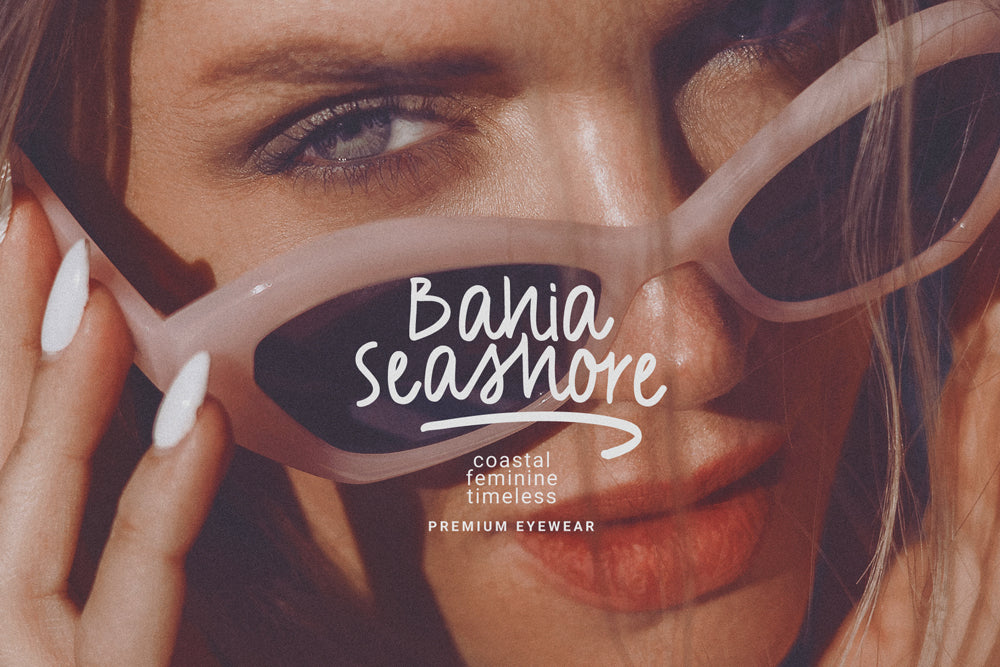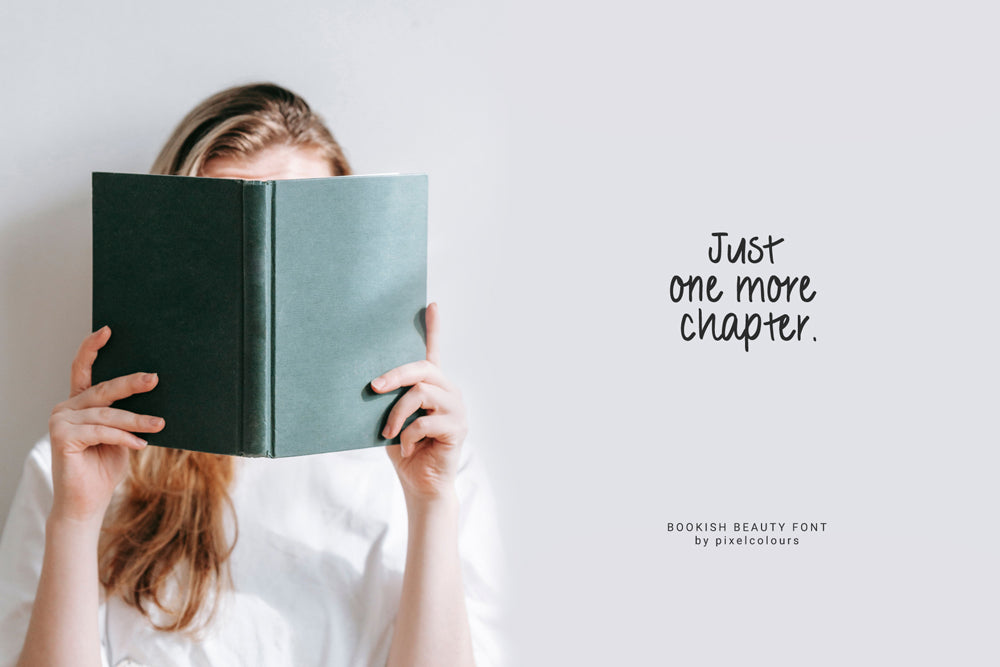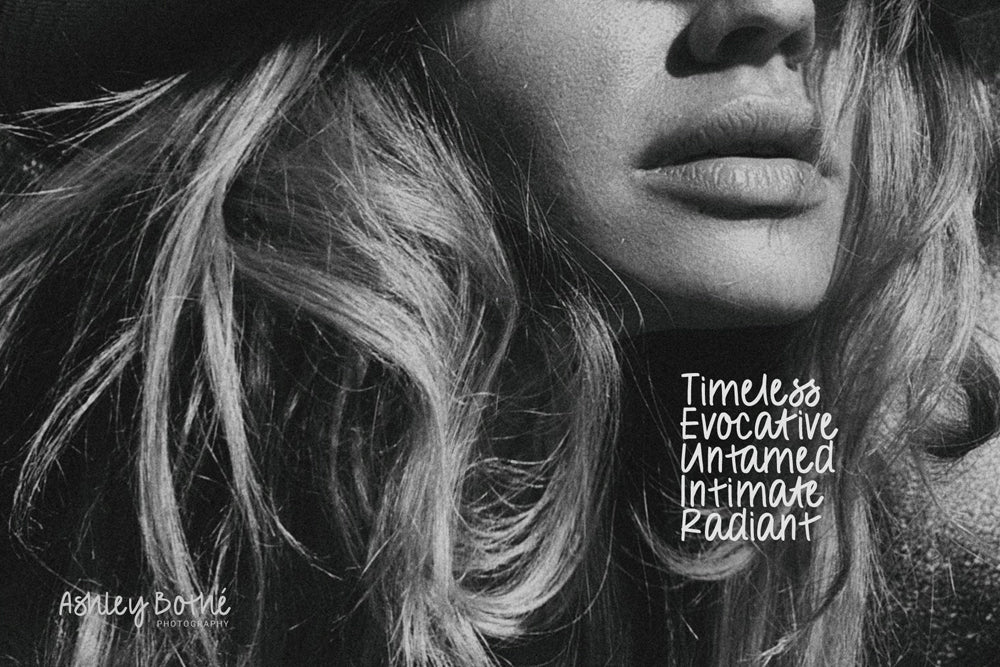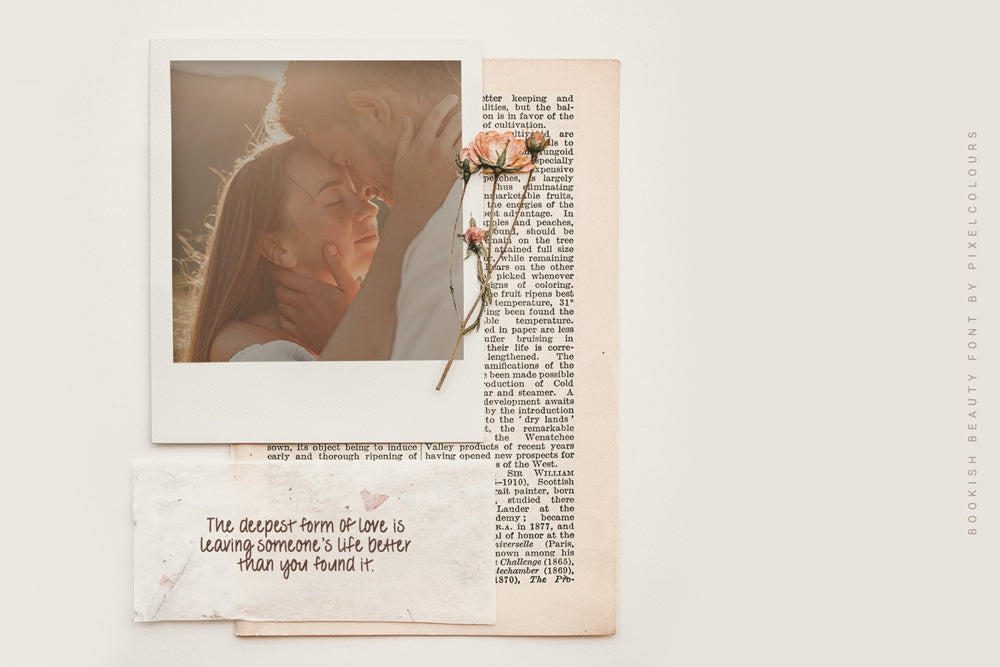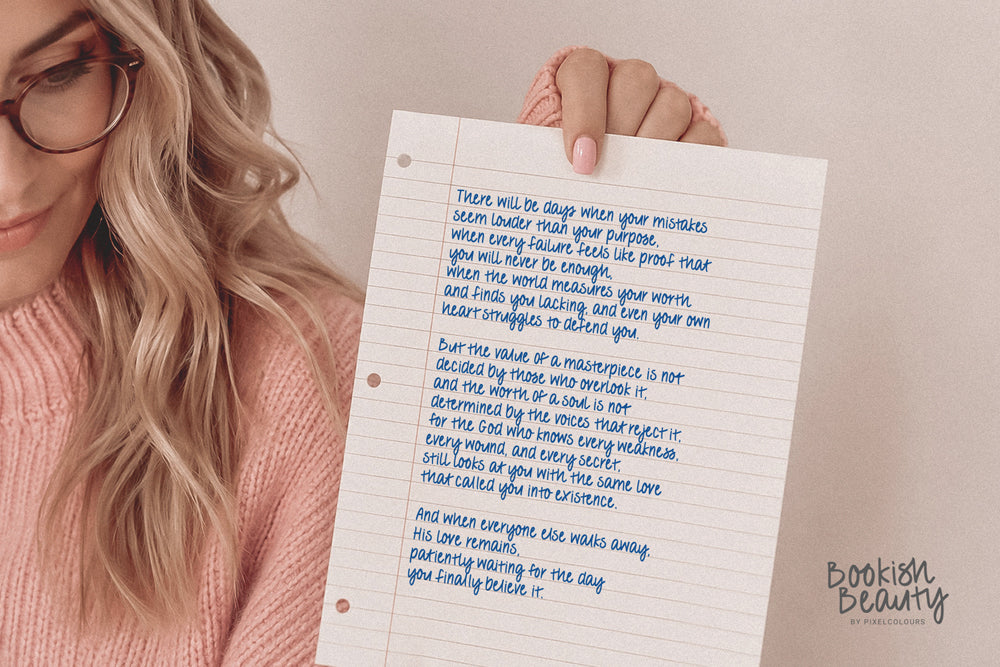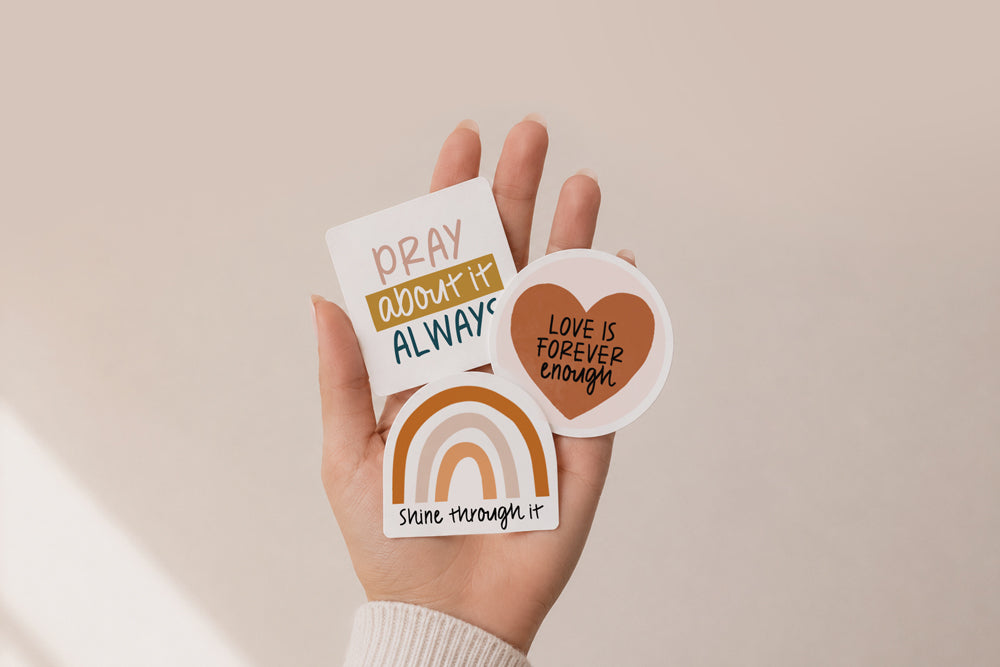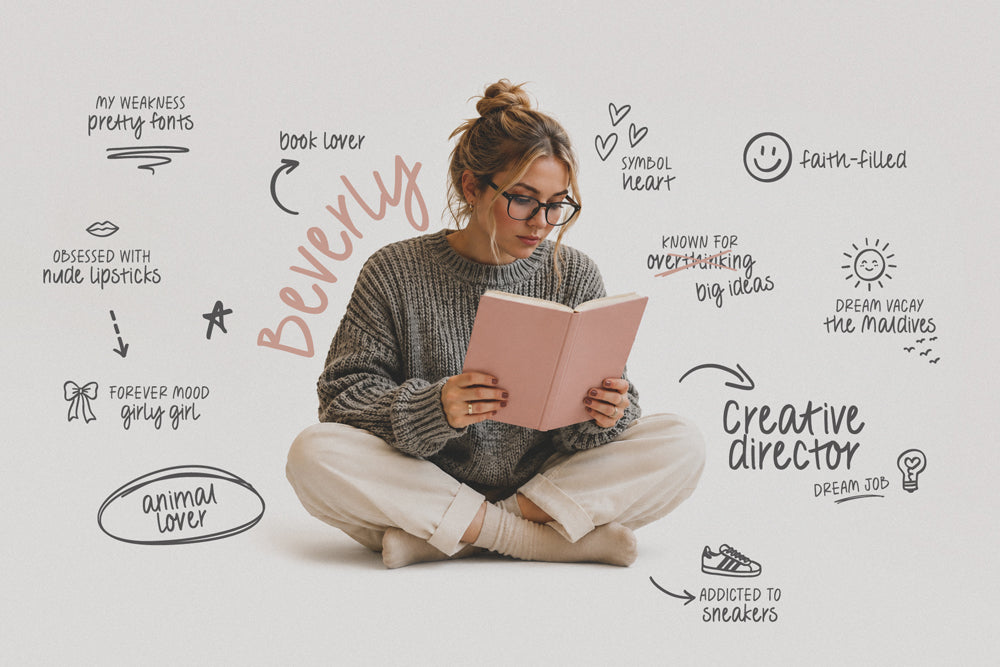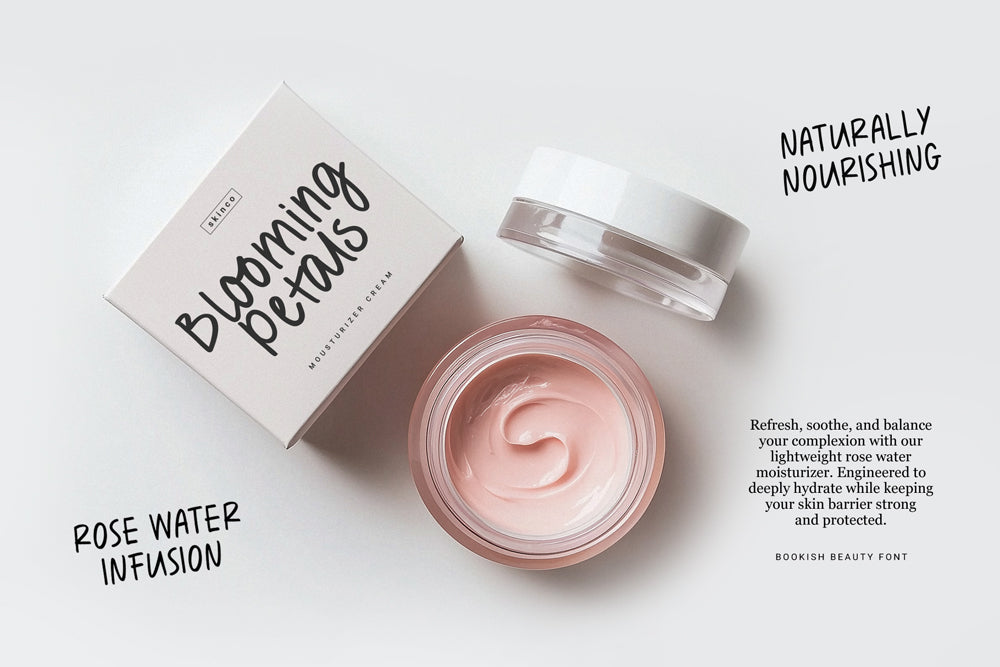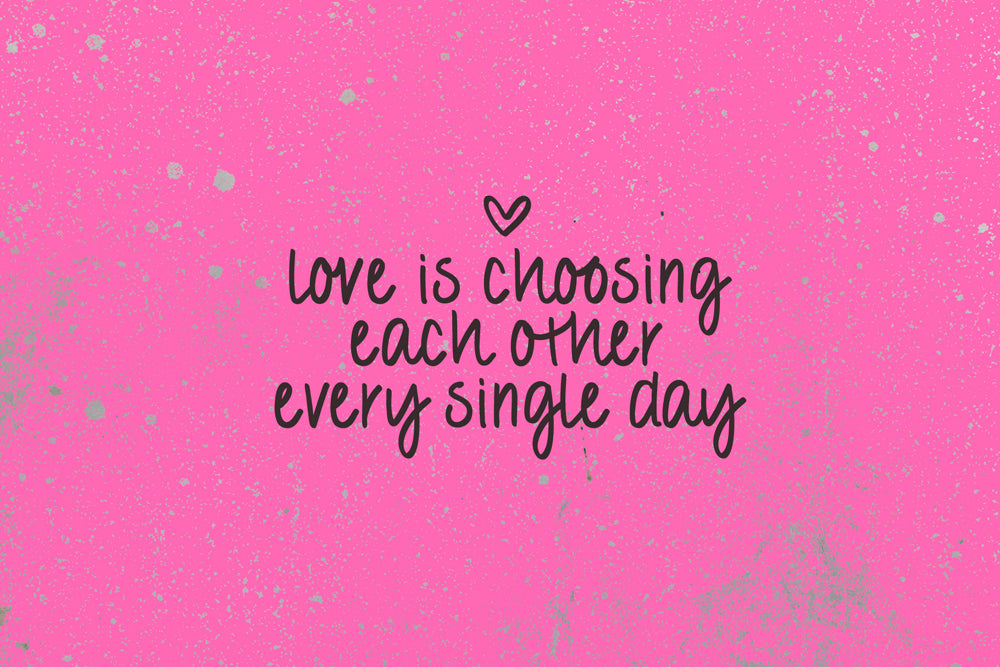
Bookish Beauty Handwritten Font and Doodles
Bookish Beauty is a quirky handwritten font inspired by journaling, stationery, books, stickers and all things cute. Designed to bring warmth, personality, and a human touch to your work, Bookish Beauty celebrates the beauty of things made by hand. This collection includes a natural handwritten script font along with 3 bonus hand-drawn fonts packed with over 400 doodles and decorative clip art.
FEATURES
Bookish Beauty Regular
A playful font that sits somewhere between print and cursive, inspired by everyday notes, journal pages, and book annotations. Includes ligatures for an authentic handwritten look. Perfect for both body copy and display text.
Bookish Beauty Essentials
A collection of journal elements, stationery doodles, office supplies, decorative graphics, and everyday essentials including books, coffee cups, notebooks, paper clips, sticky notes, labels, checklists, and more.
Bookish Beauty Scribbles
Hand-drawn underlines, highlights, circles, arrows, strike-throughs, scribbles, and sketchy marks designed to help emphasize text and add a creative handmade touch to your designs.
Bookish Beauty Whimsy
A doodle font filled with hearts, stars, clouds, sunshine, flowers, nature-inspired illustrations, and other whimsical elements.
- Uppercase and lowercase letters
- Numbers and punctuation
- 3 bonus dingbat fonts with 400+ hand-drawn graphics
- Ligatures
- Language support
Bookish Beauty is perfect for:
- Stickers and labels
- Notes and quote designs
- Social media graphics
- Journals and planners
- Scrapbooking projects
- Book covers and bookish content
- Wedding invitations and stationery
- Branding and logo designs
- Packaging design
- Classroom resources and back-to-school projects
- Printable products
- Cricut and cutting machine projects